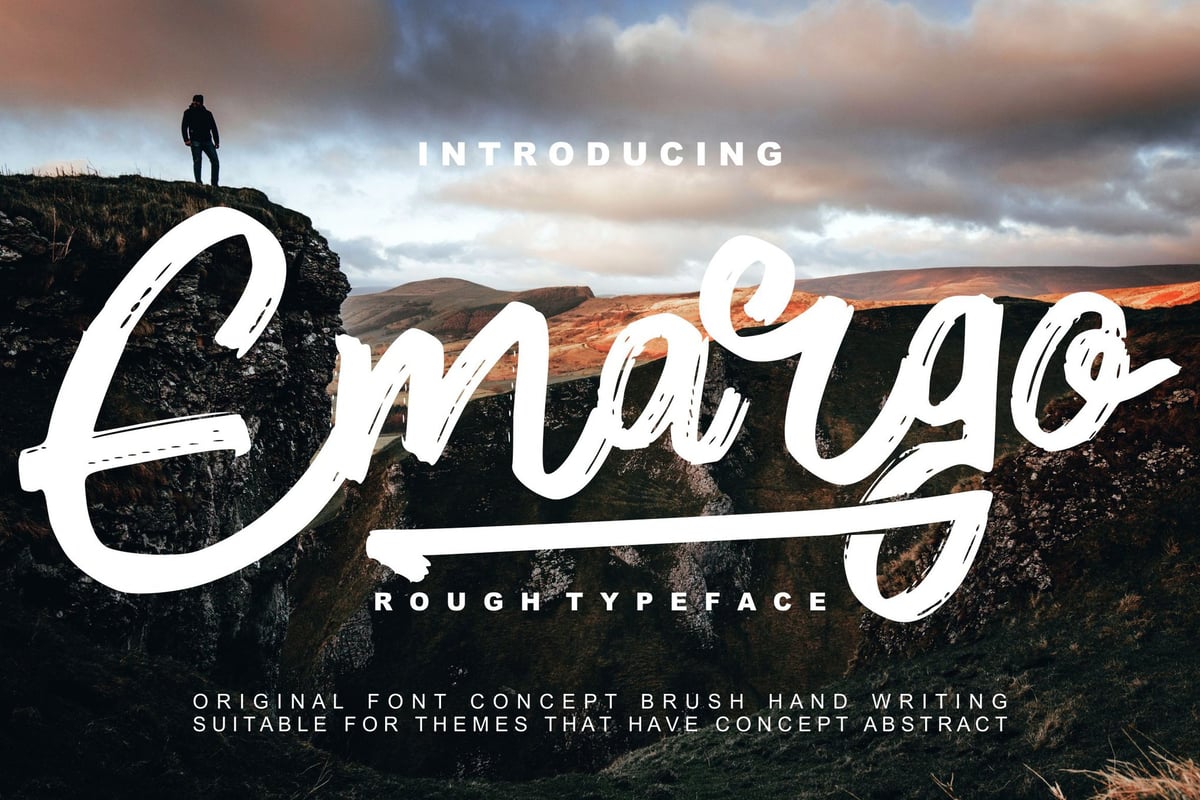
Free Emargo - Rough Typeface
Emargo is a bold, rough-textured brush script that brings raw, handcrafted energy to any design.
With its natural calligraphy style and deliberately rugged texture, Emargo is a stunning choice for invitations, greeting cards, branding materials, business cards, quotes, and posters — anywhere you want type that feels alive and authentic.
Packed with OpenType features, the alternate characters are organized across several feature sets for maximum creative flexibility:
- Stylistic Sets
- Stylistic Alternates
- Contextual Alternates
- Swash characters
- Ligatures